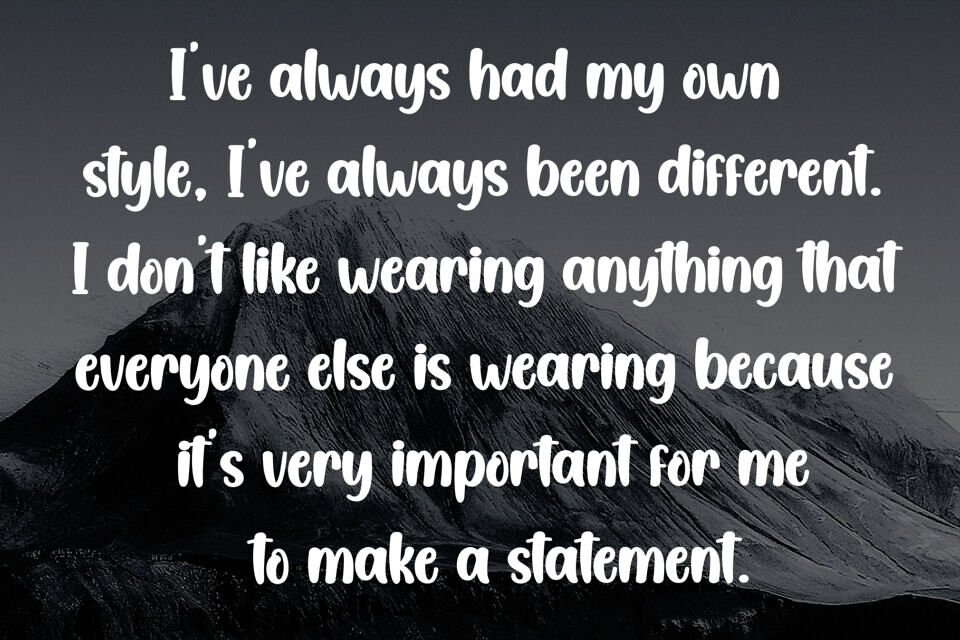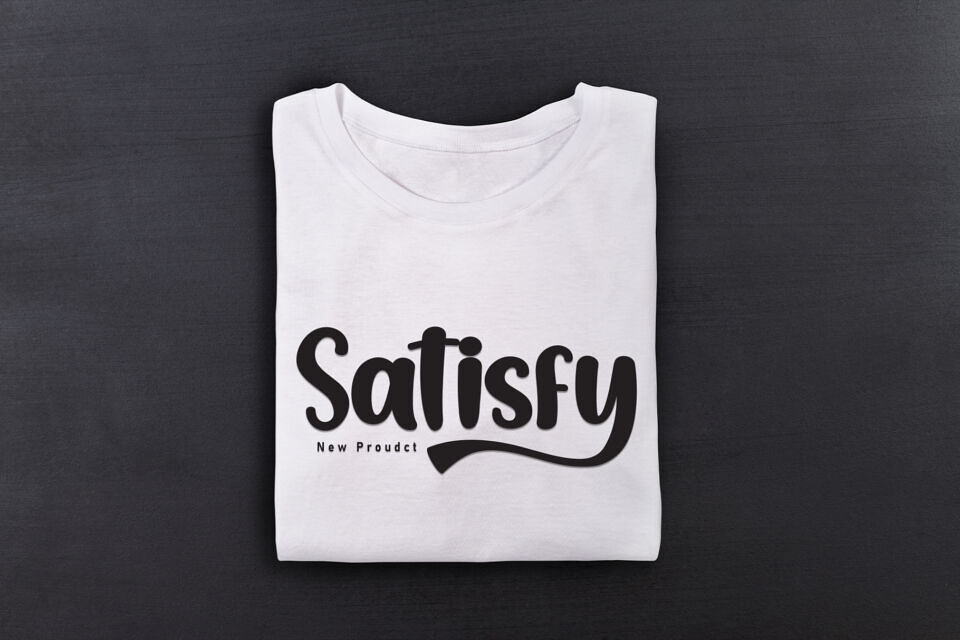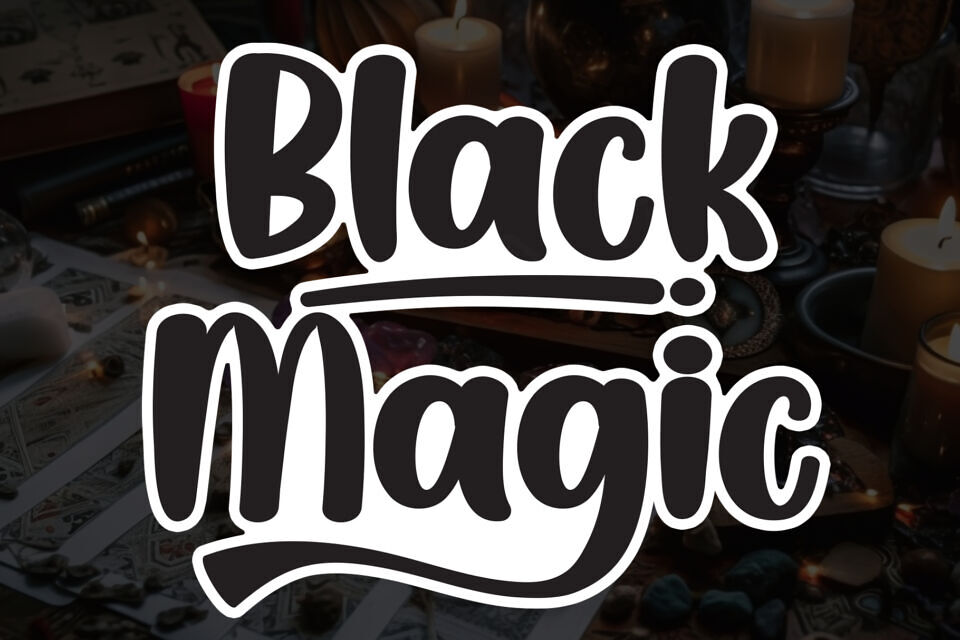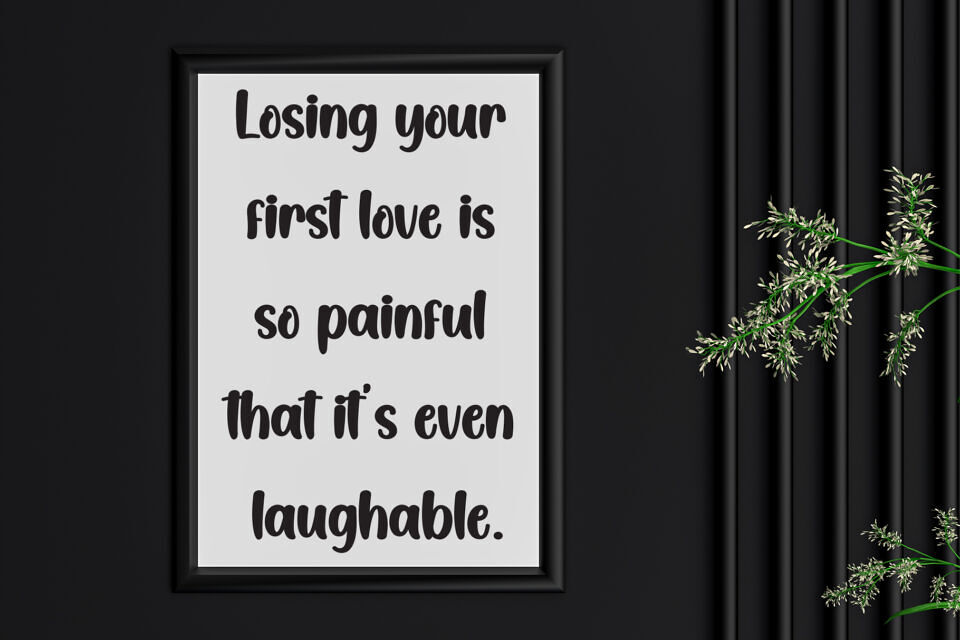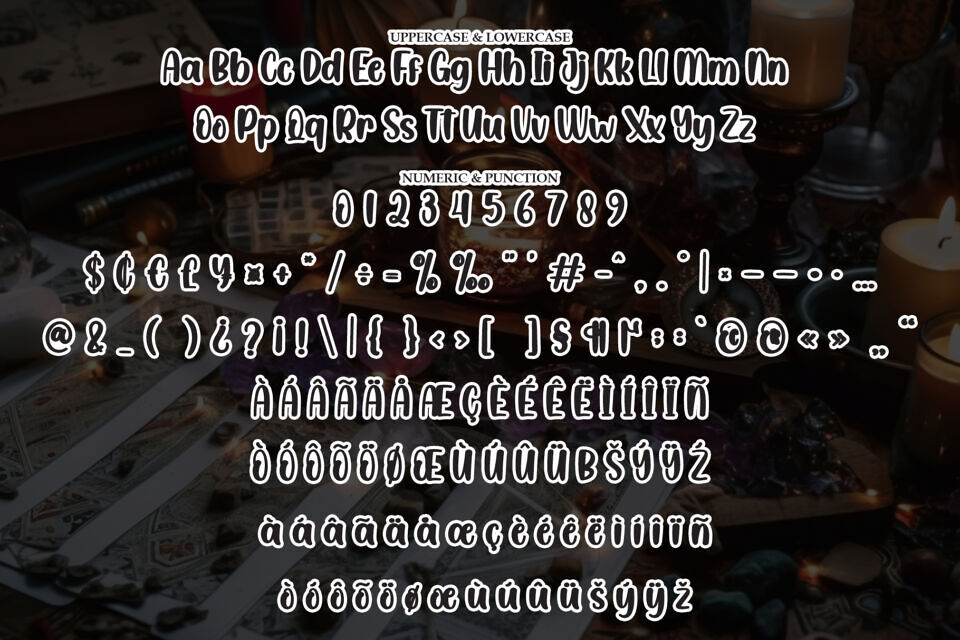
Whether you’re looking to make a bold statement or add a playful touch to your designs, Black Magic is the perfect choice.
With its distinctive style, this font is sure to leave a lasting impression and bring a touch of untamed beauty to any project.